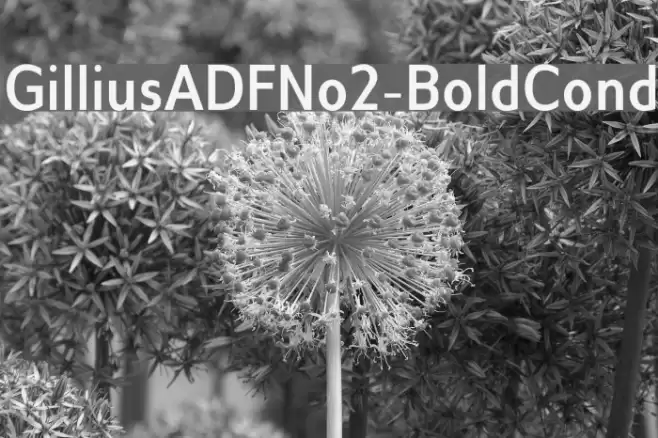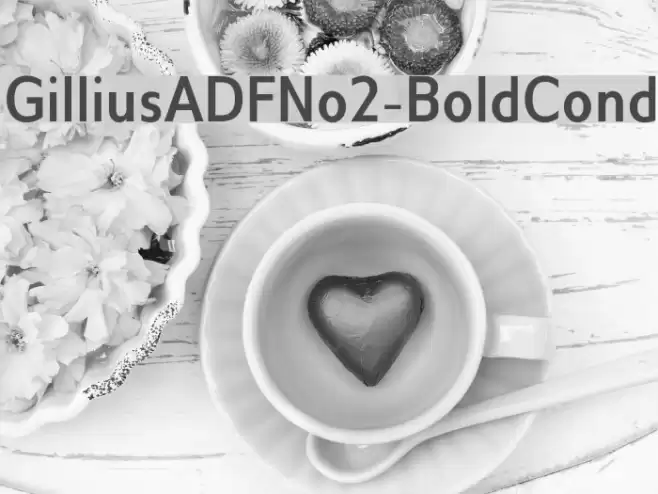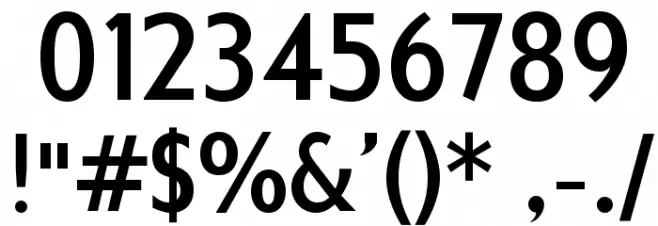
GilliusADFNo2-BoldCond Font
GilliusADFNo2-BoldCond Description
This font features a clean and modern sans-serif style with bold, uniform strokes that provide a strong presence on the page. The characters are well-proportioned, with a slightly condensed width that enhances readability while maintaining a compact appearance. The uppercase letters are tall and commanding, while the lowercase letters are balanced and approachable. The numerals are clear and distinct, making them ideal for data presentation. Special characters are designed with precision, ensuring they integrate seamlessly with the rest of the font. This font's boldness and clarity make it suitable for a variety of design applications.
A bold, modern sans-serif font with a slightly condensed width and strong readability from Uncategorized fonts.
- Proposed Projects: Ideal for branding, headlines, posters, and digital interfaces where clarity and impact are essential.
- Use Case: Headlines, Logos, Digital Interfaces